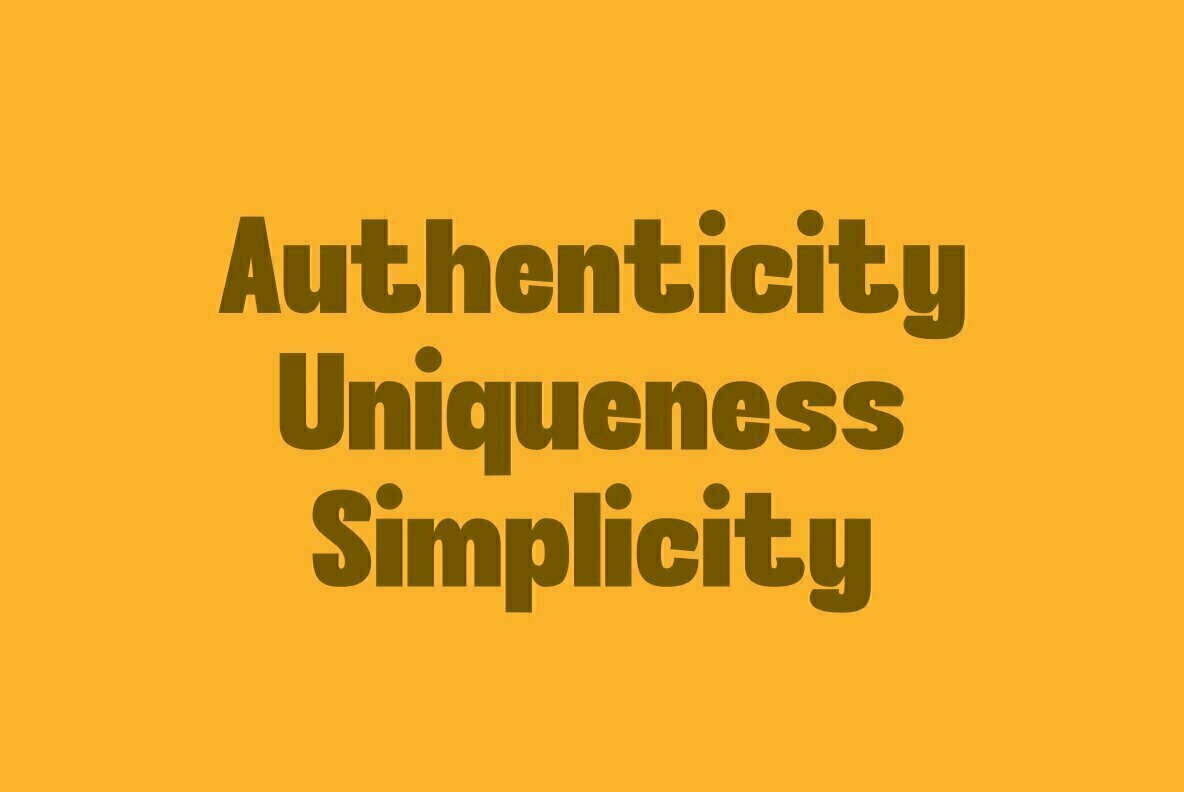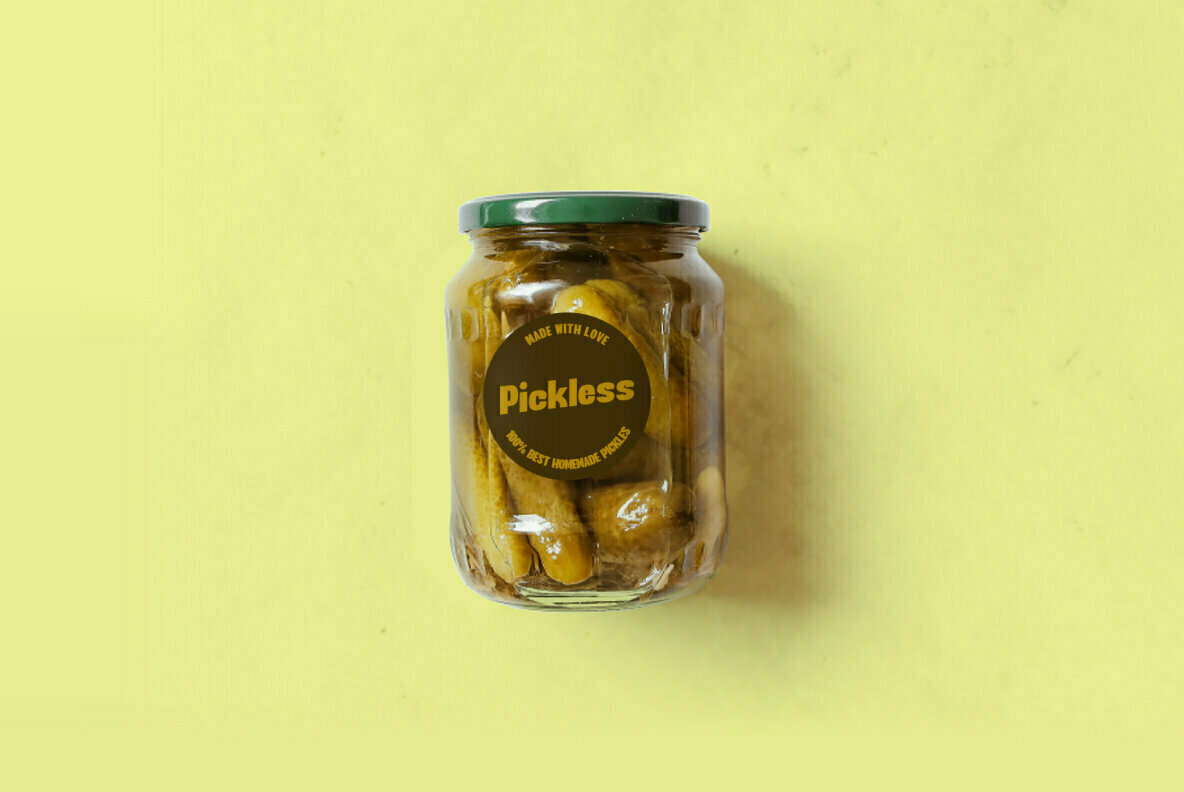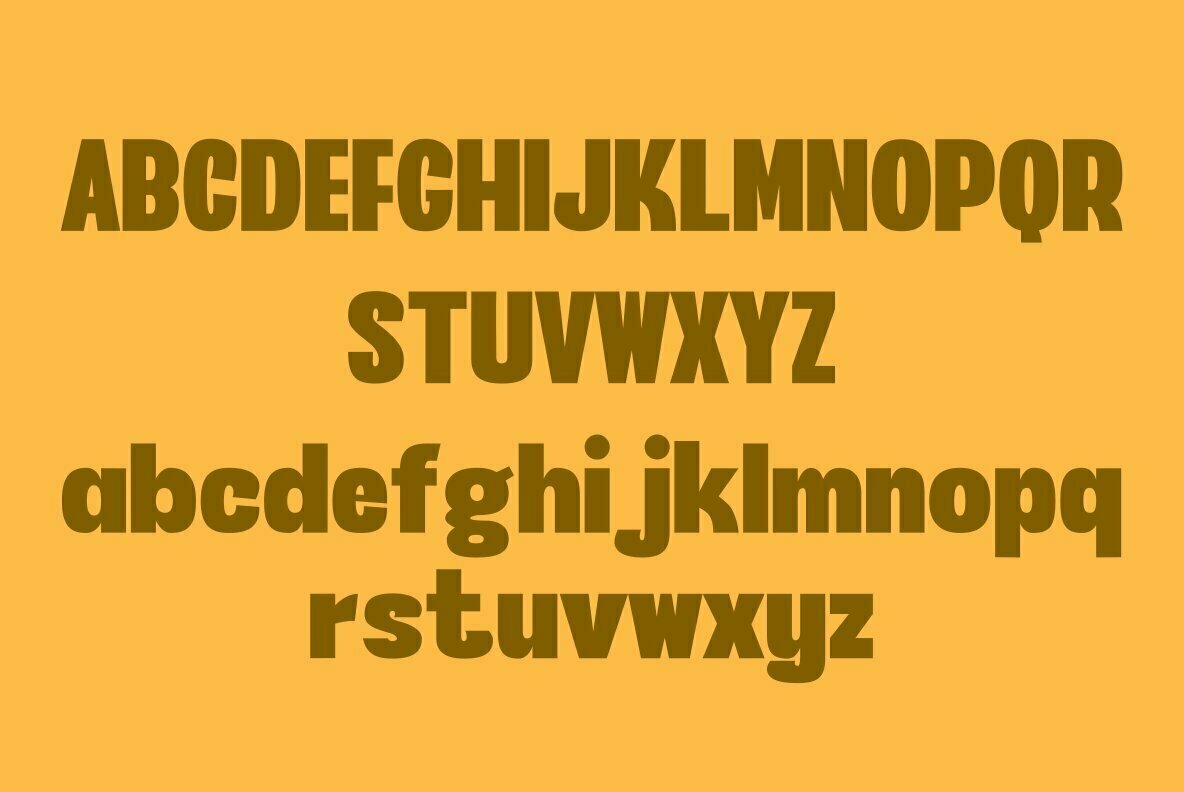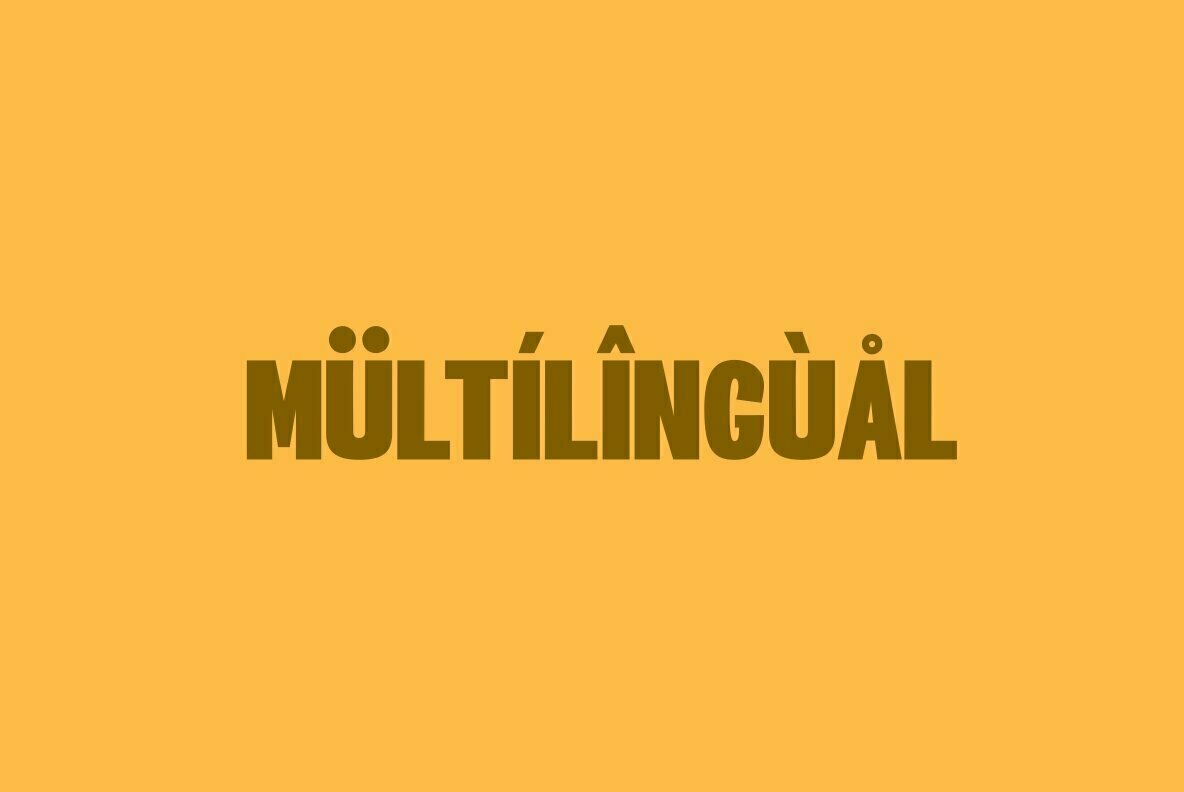
Cocomber Font
Cocomber
Inspired by something unique, the Cocomber font is made with a unique and distinctive shape. Combining authenticity and unique form, this font looks casual and gives off a fun feel. This font will be suitable for use in graphic designs with a casual theme.